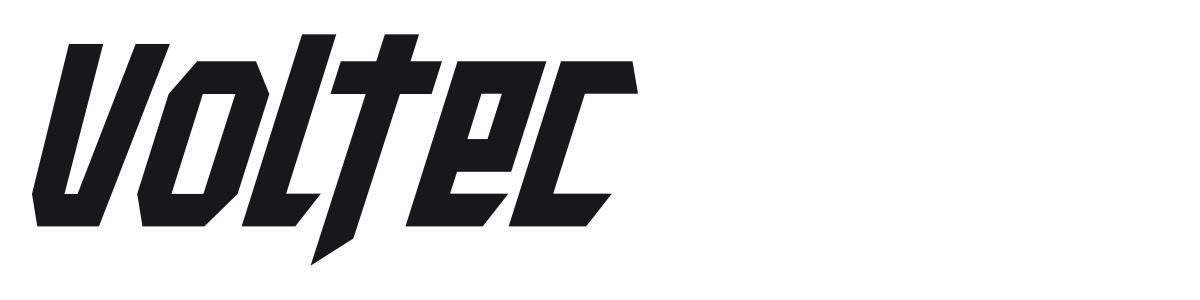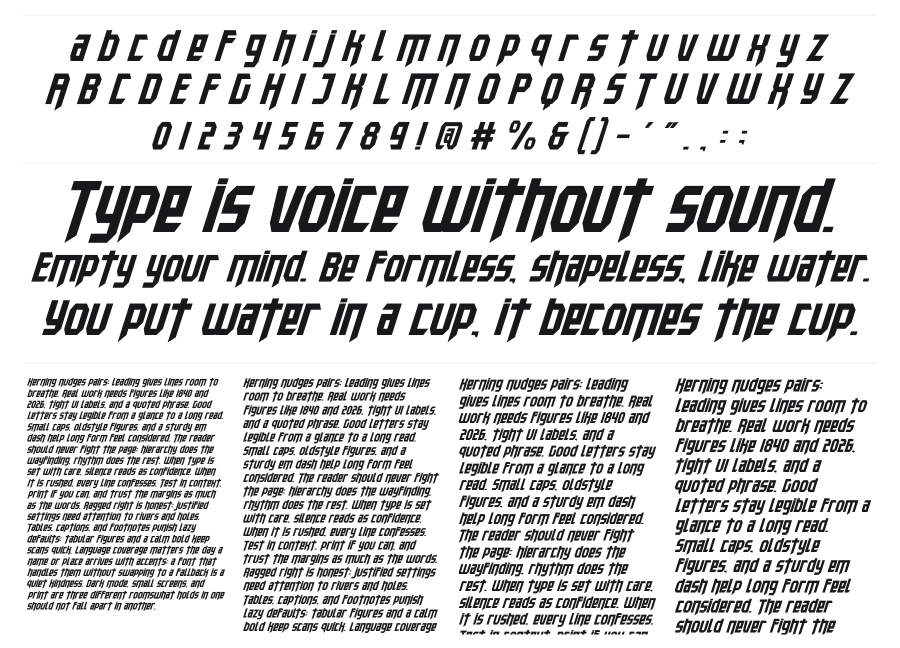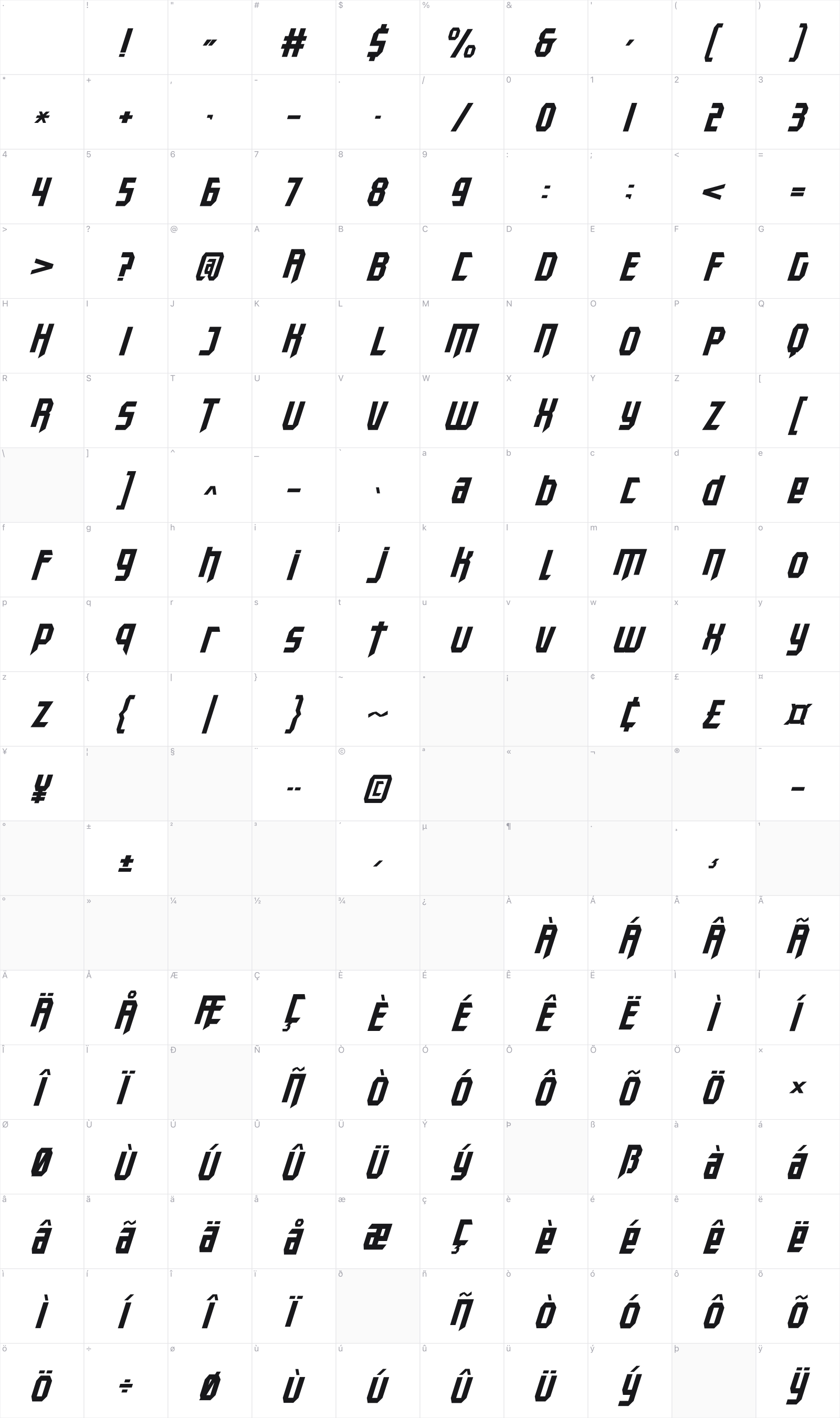
Voltec
Voltec is a bold, angular techno typeface built for impact, with sharp notched terminals and a strong italic lean that push every word into motion. The heavy weight and mechanical cuts make it immediately at home in sci-fi, gaming, and action-oriented design contexts. It commands attention at large sizes and leaves little room for subtlety.